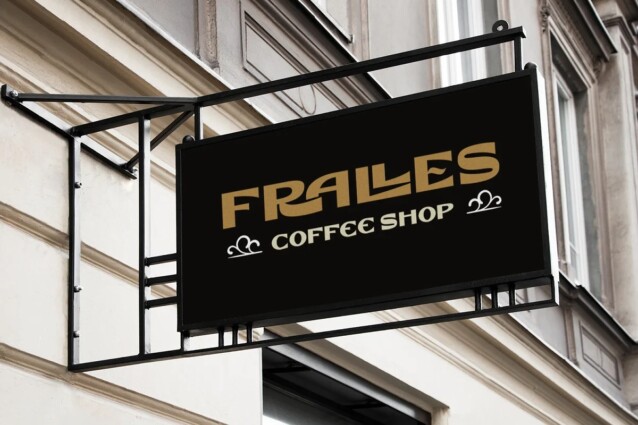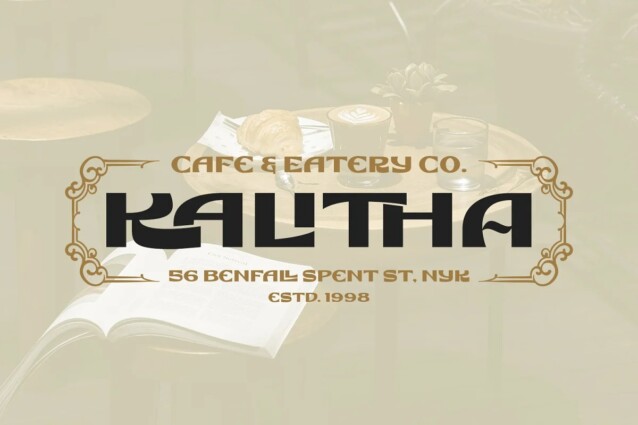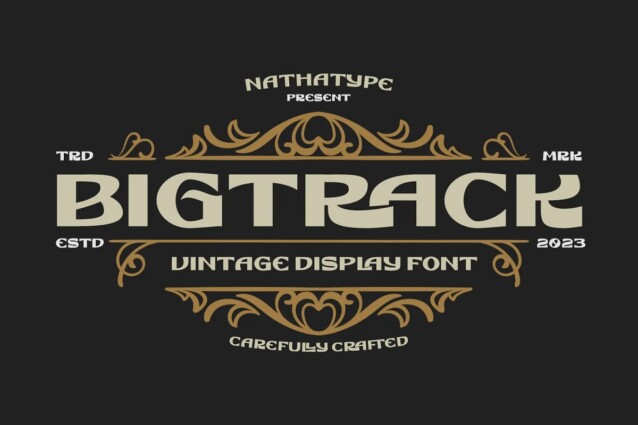
Bigtrack Font
Bigtrack Font is a bold and friendly typeface created by Din Studio. The uppercase letters in this font are a testament to the bold aesthetics of a bygone era. Their sharp corners and clean lines exude a sense of strength and confidence. These letterforms are reminiscent of vintage signage, evoking memories of classic design. With its heavy weight, Bigtrack ensures that your message stands out with authority. The generous spacing between characters adds to its legibility and imparts a sense of grandeur to your text. What sets Bigtrack apart is its unique blend of vintage charm and contemporary appeal. While it pays homage to the past with its sharp corners and bold weight, it remains relevant in the modern design landscape. As a special bonus, this font includes ornaments. Moreover, enjoy the features here.